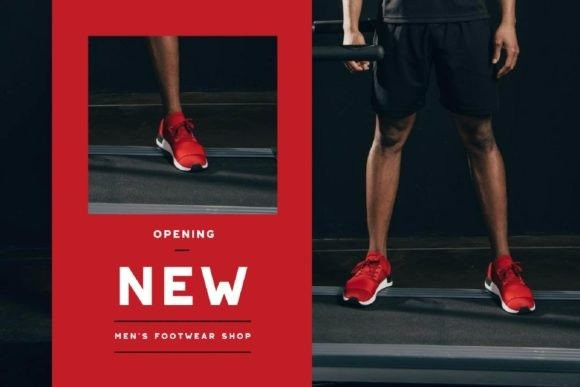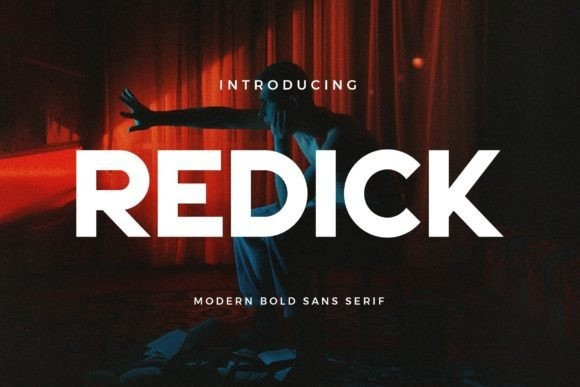
Redick Font
Redick Font, inspired by the famous minimalist logo perfect for the purposes of designing templates, brochures, videos, advertising branding, logos, invitation, layout design, elegant crafting, beauty design and other.